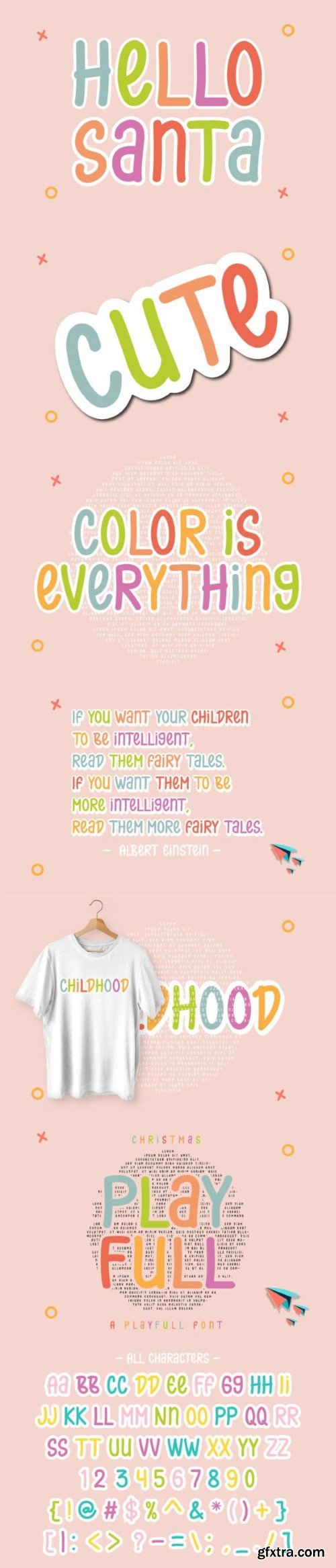
圣诞节 playful 字体
Playful Christmas is a cute, friendly and fun handwritten font. Whether you use it for crafts, greeting cards, quotes, or stickers this font has the potential to become your favorite font, whatever the occasion!